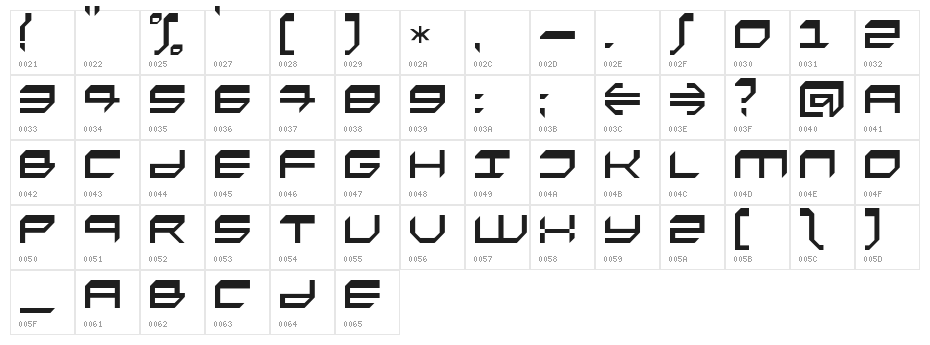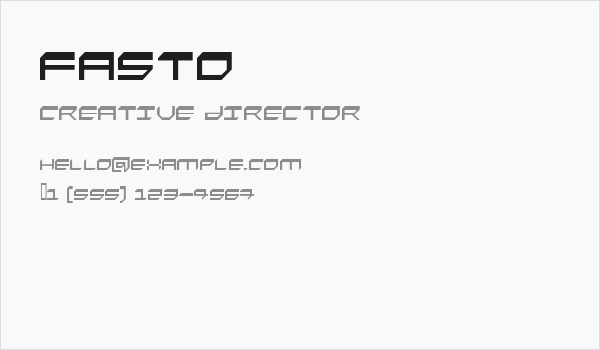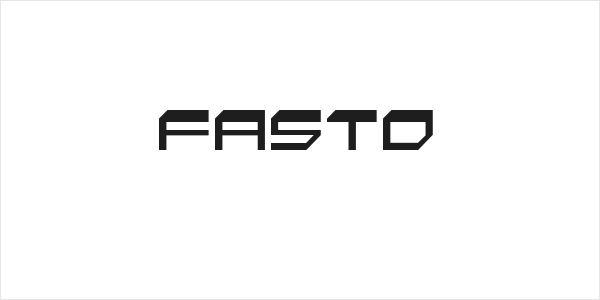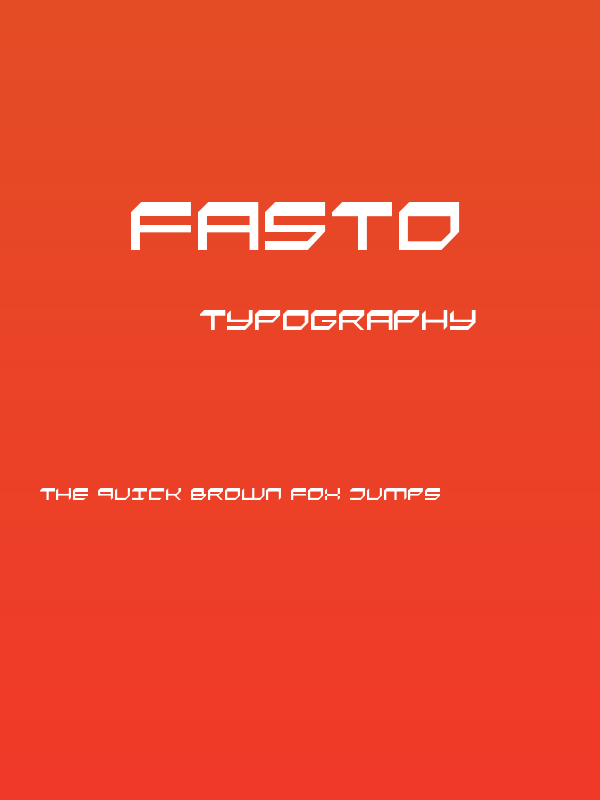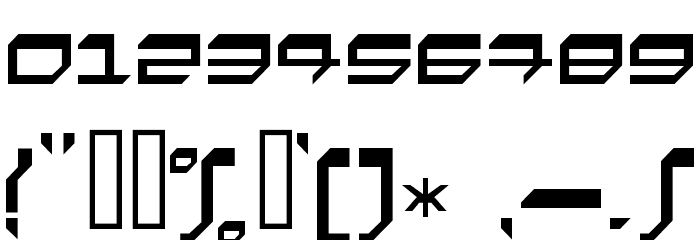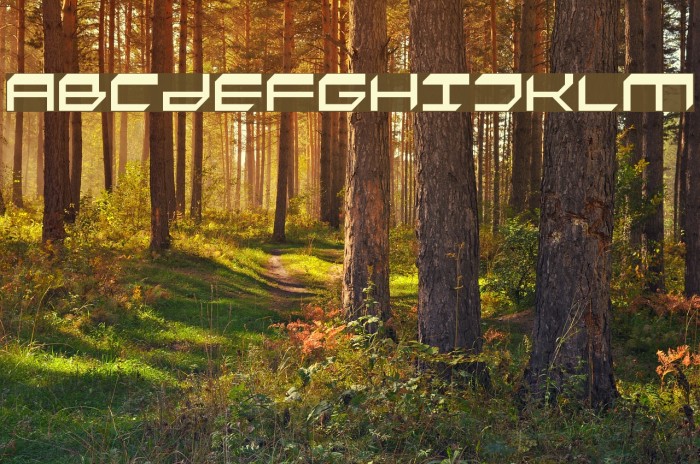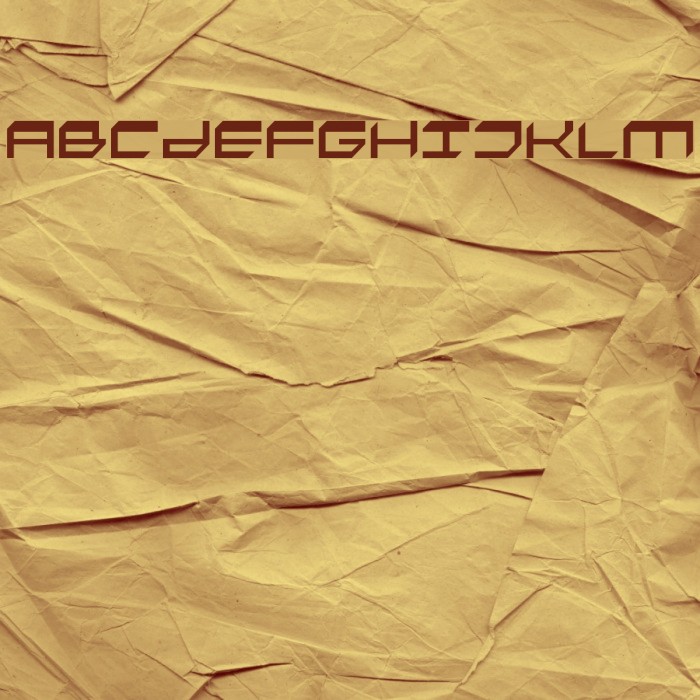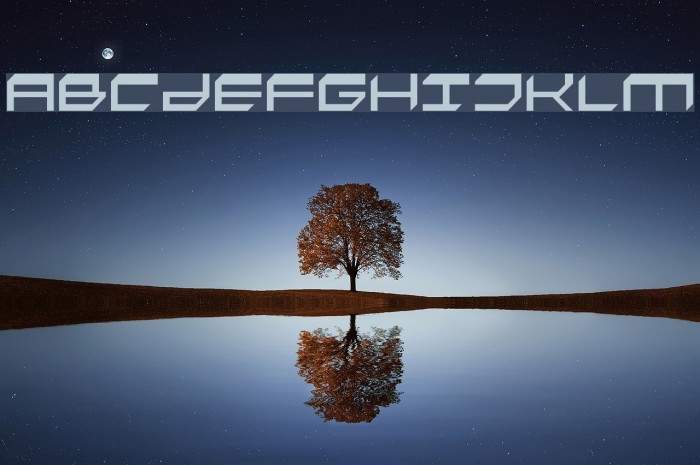
Fasto Font
Fasto Description
This font features a bold, geometric design with sharp angles and a futuristic aesthetic. The characters are constructed with straight lines and pointed edges, giving it a dynamic and edgy appearance. The uppercase and lowercase letters maintain a consistent style, with a uniform height that enhances readability. Numbers and special characters follow the same angular design, ensuring a cohesive look across all glyphs. The font's unique style makes it stand out, perfect for projects that require a modern and innovative touch.